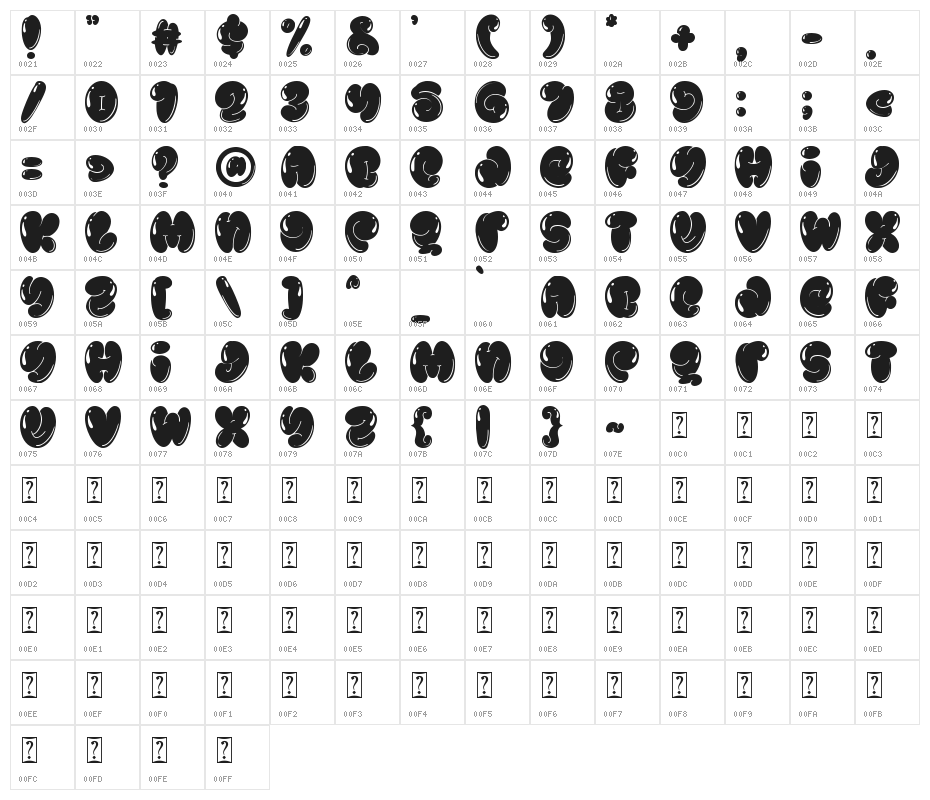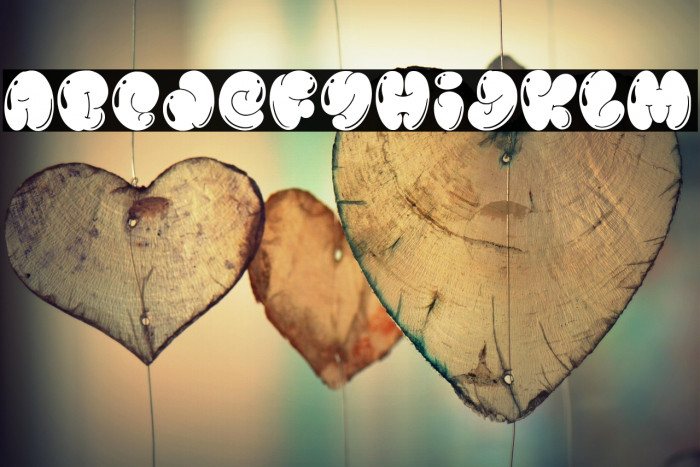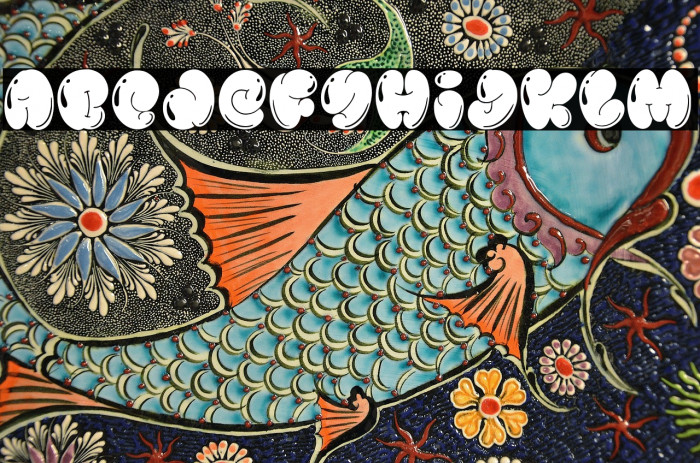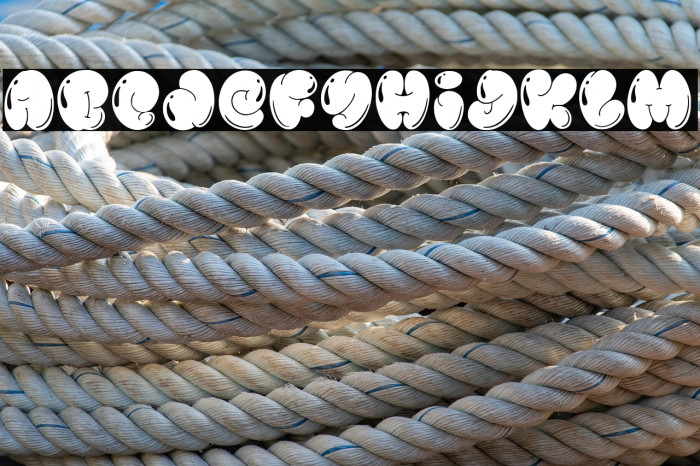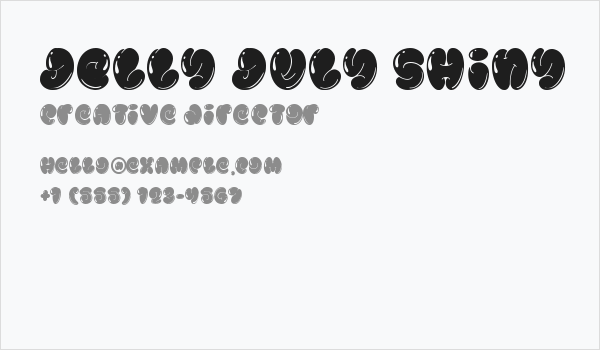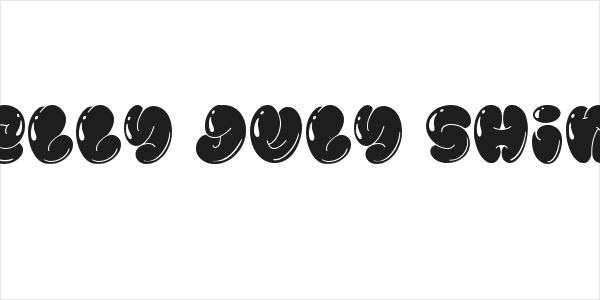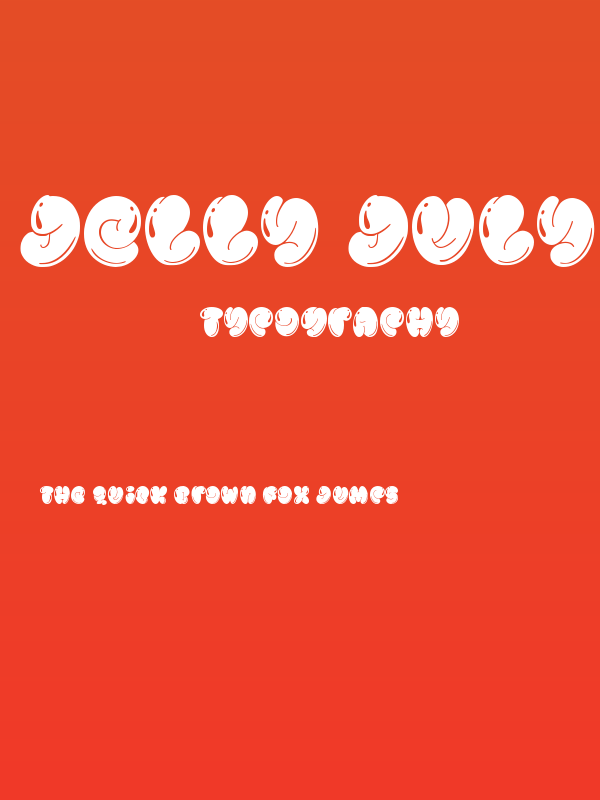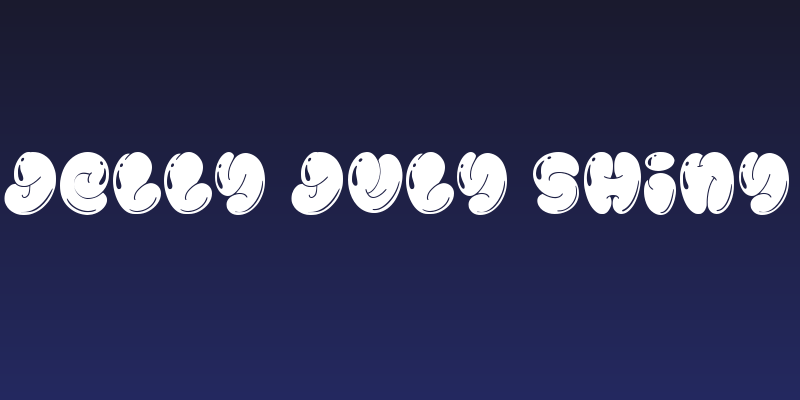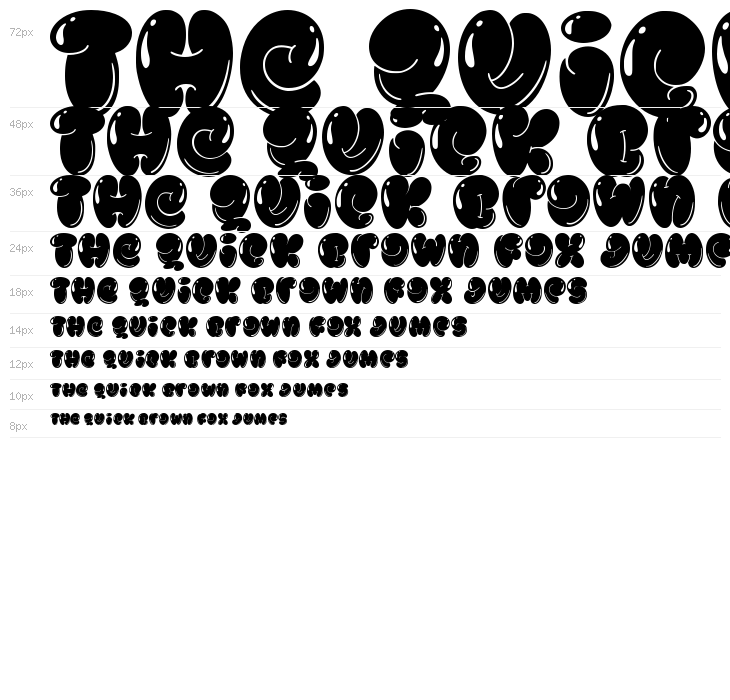
Jelly July Shiny Font
Jelly July Shiny Description
This playful and bold font features a bubbly, shiny appearance reminiscent of jelly or liquid. The characters are rounded and have a glossy effect, giving them a three-dimensional look. The font is highly decorative, with each letter appearing as if it is inflated or filled with air. The strokes are thick and consistent, creating a uniform and cohesive style. The overall design is whimsical and eye-catching, making it suitable for creative and fun projects. The font includes both uppercase and lowercase letters, numbers, and a variety of special characters, all maintaining the same playful aesthetic.
| Use Case | Logos, Posters, Creative Projects |
| Proposed Projects | Ideal for children's book covers, playful branding, party invitations, and creative posters. |